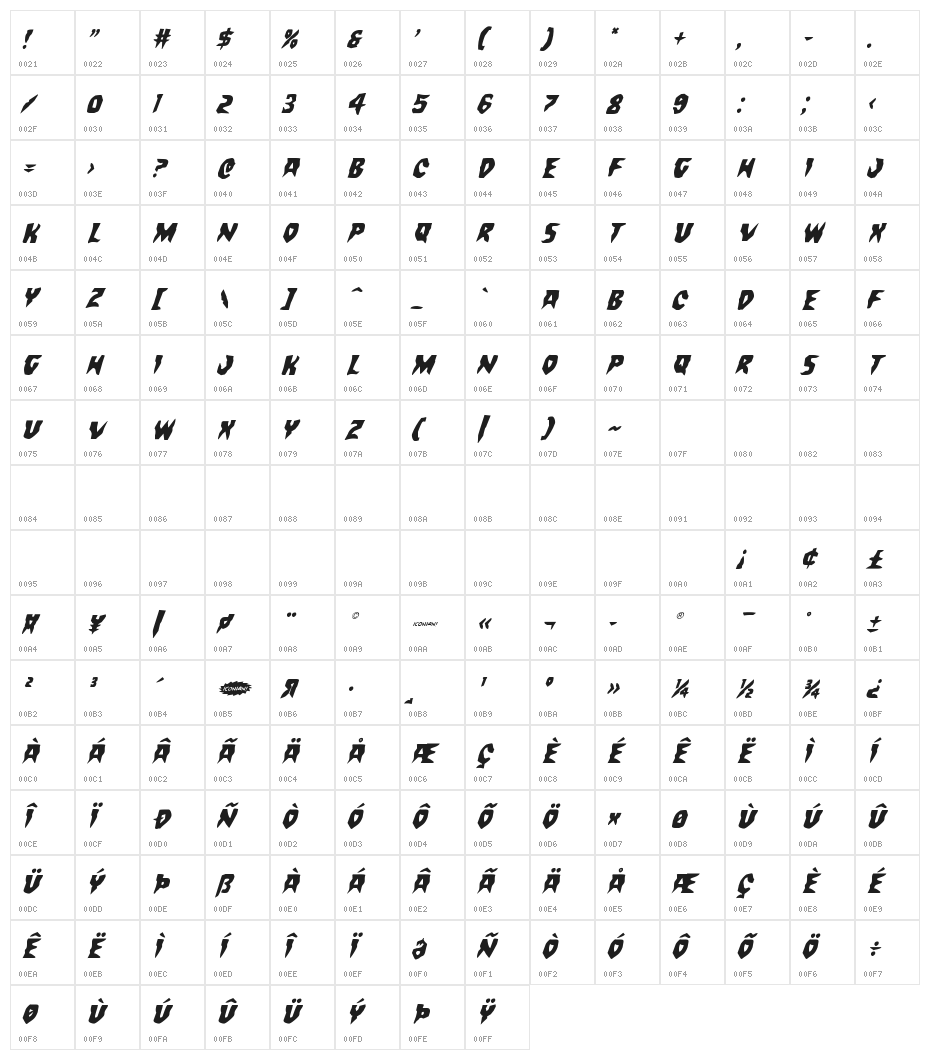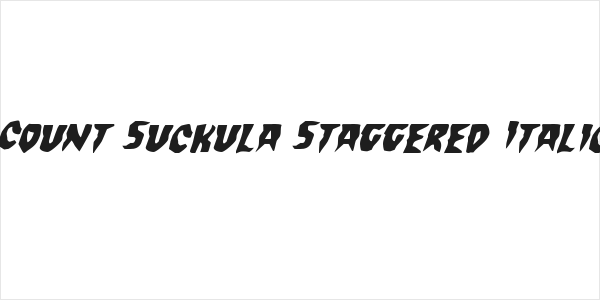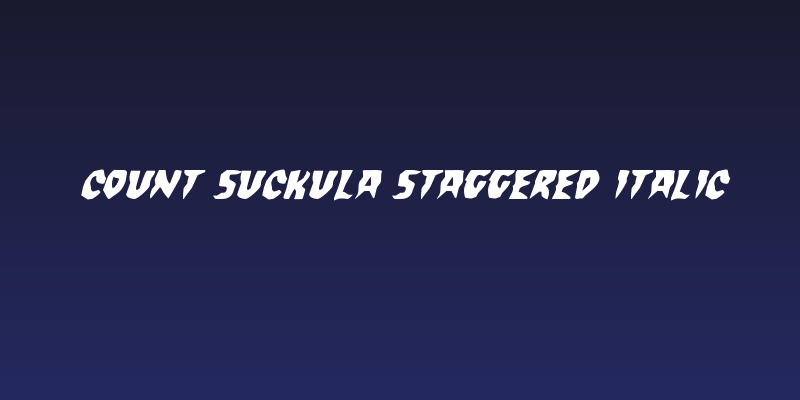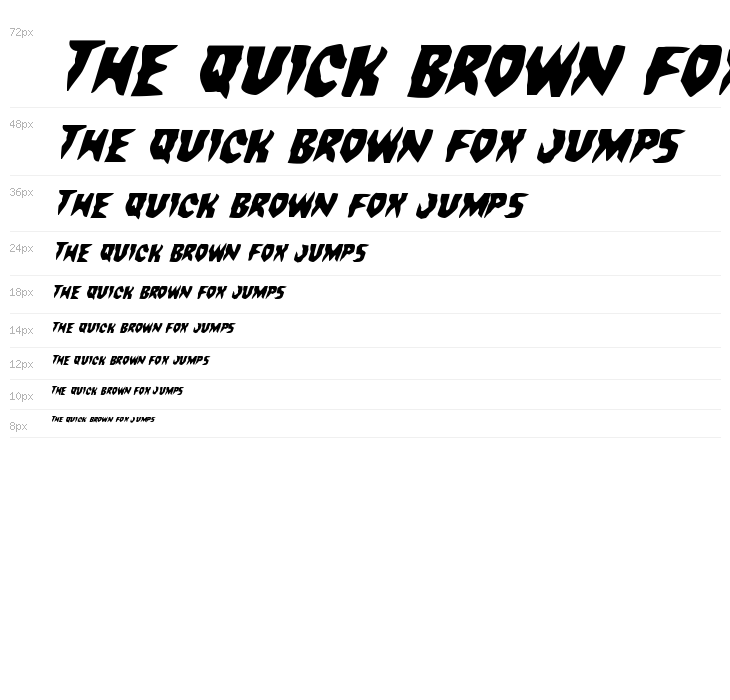
Count Suckula Staggered Italic Font
Count Suckula Staggered Italic Description
This font features a bold and dynamic style with sharp, angular edges and a staggered, italicized form. The characters are designed with a sense of movement and energy, making them stand out with their unique, jagged appearance. The uppercase and lowercase letters maintain a consistent style, with the numbers and special characters following suit. The font's boldness is complemented by its slightly condensed width, giving it a compact yet impactful presence. The high contrast in stroke thickness adds to its dramatic and eye-catching nature.
Proposed ProjectsIdeal for Halloween-themed designs, edgy posters, album covers, or any project requiring a dramatic and bold typeface.